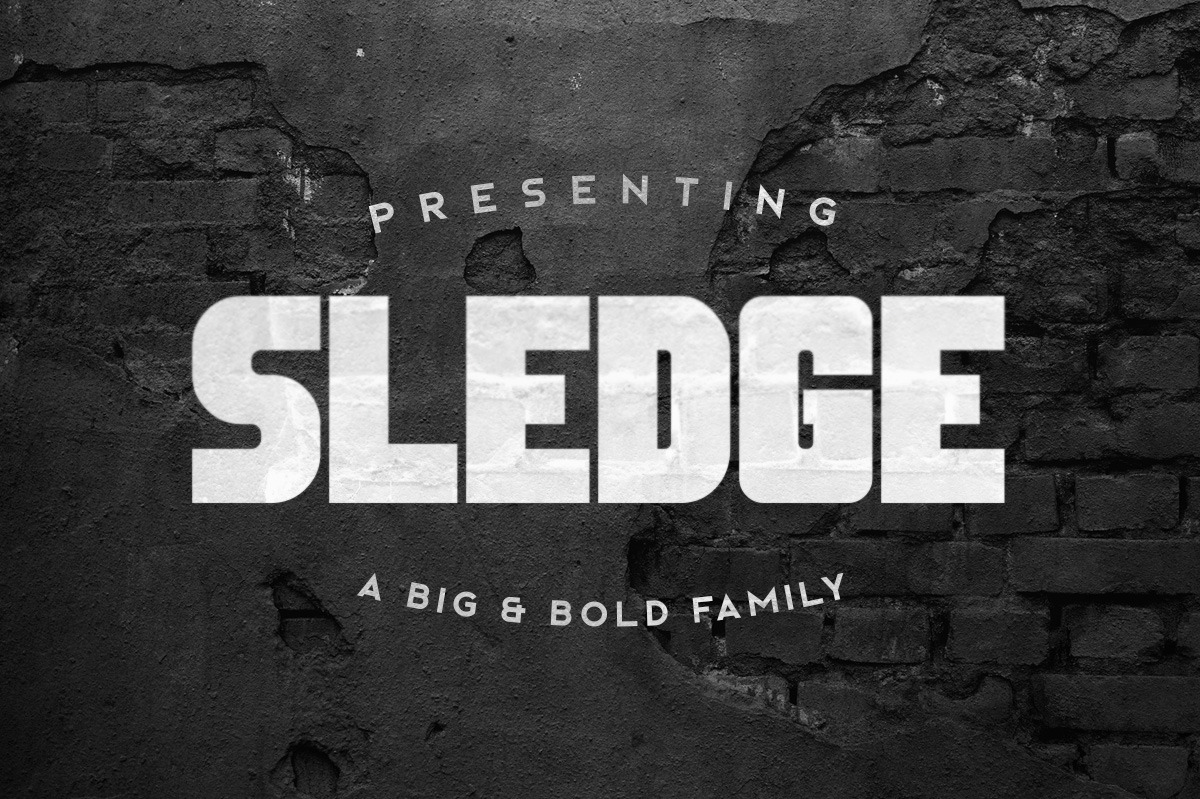
Sledge Typeface
I wanted a font that was apocalyptic, urban and grunge that would work well on posters. I needed it to be big and bold so I could use Photoshop blending modes like difference or subtract without impeding readability. So I made Sledge.
It includes the Rough, textured version and the Regular version if you need to texture it yourself. The 3rd screenshot is the default kerning. It's extremely tight, similar to the Walking Dead title font. There are no lowercase letters.